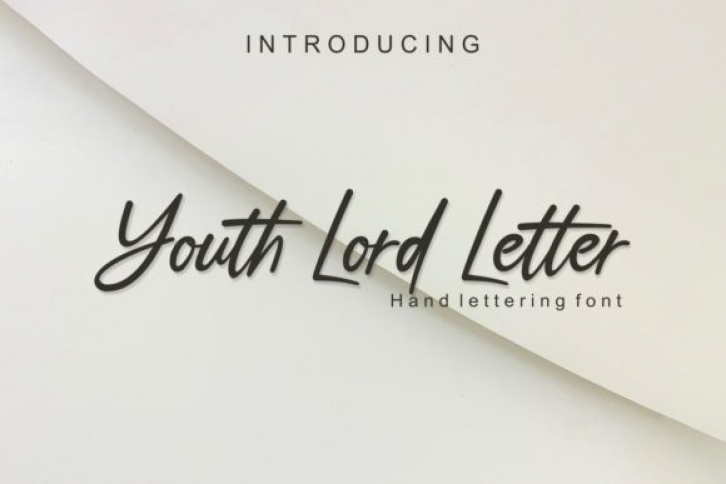
Youth Lord Letter is an exquisite handwritten font, masterfully designed to become a true favorite. It maintains its classy calligraphic influences while feeling contemporary and fresh. Fall in love with it and bring your projects to the highest levels!